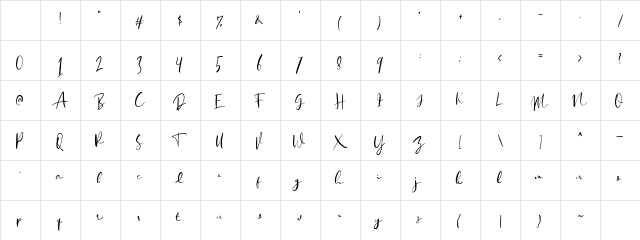
Complete Soredime DEMO Regular glyph index. Displaying only characters natively supported by Soredime DEMO Regular font.
Soredime DEMO is a composed and adaptable typeface that performs quietly and consistently across a wide range of design contexts.